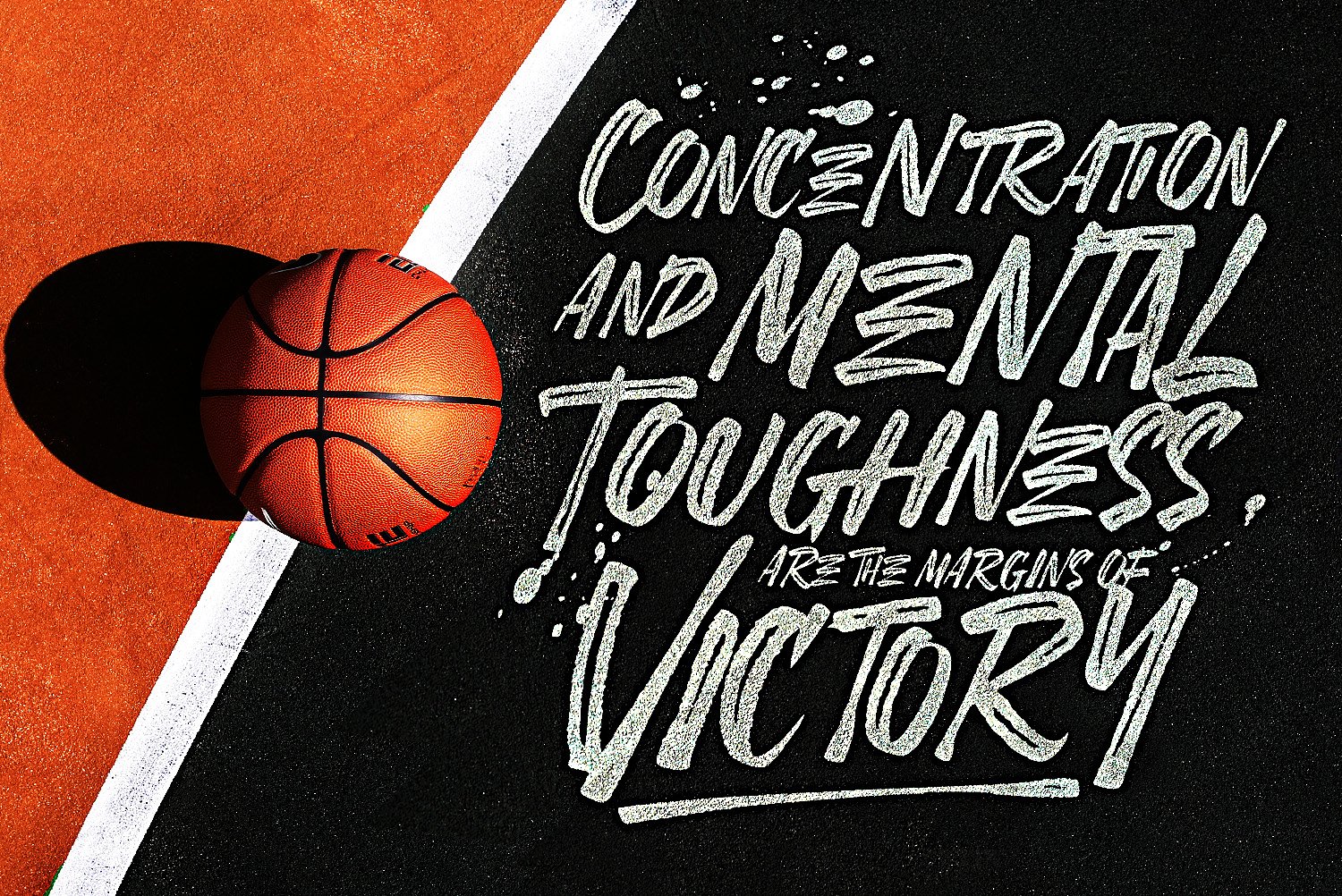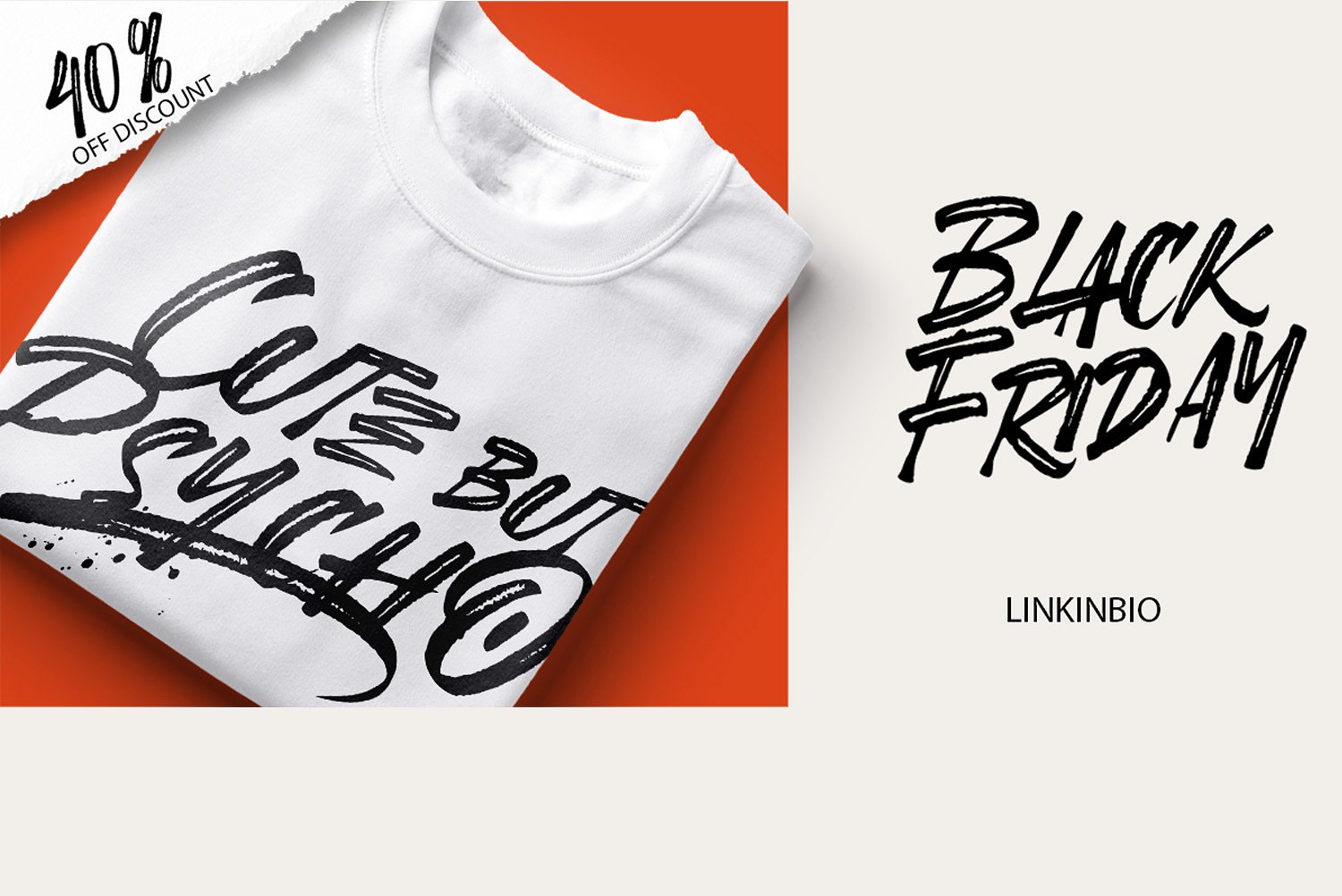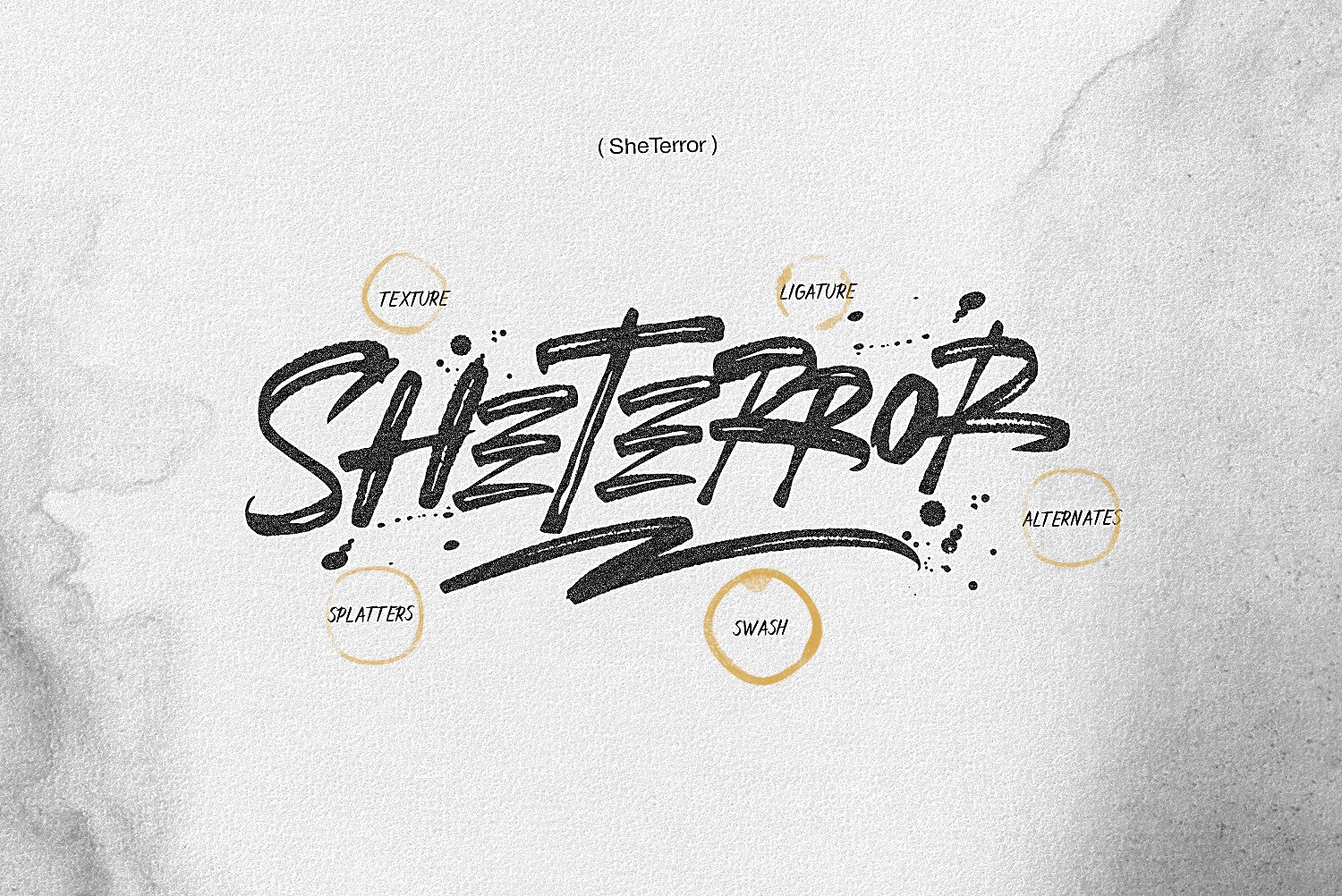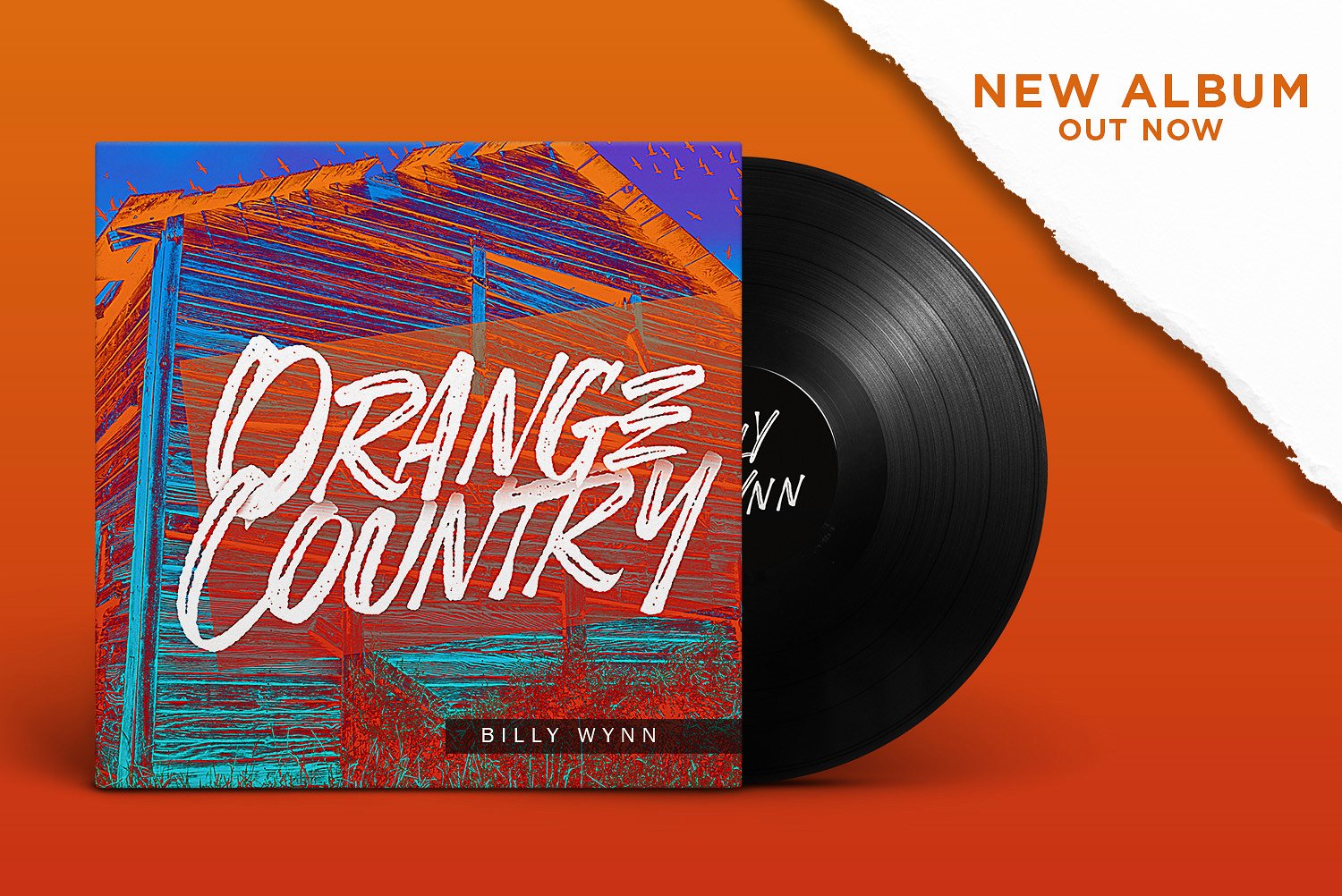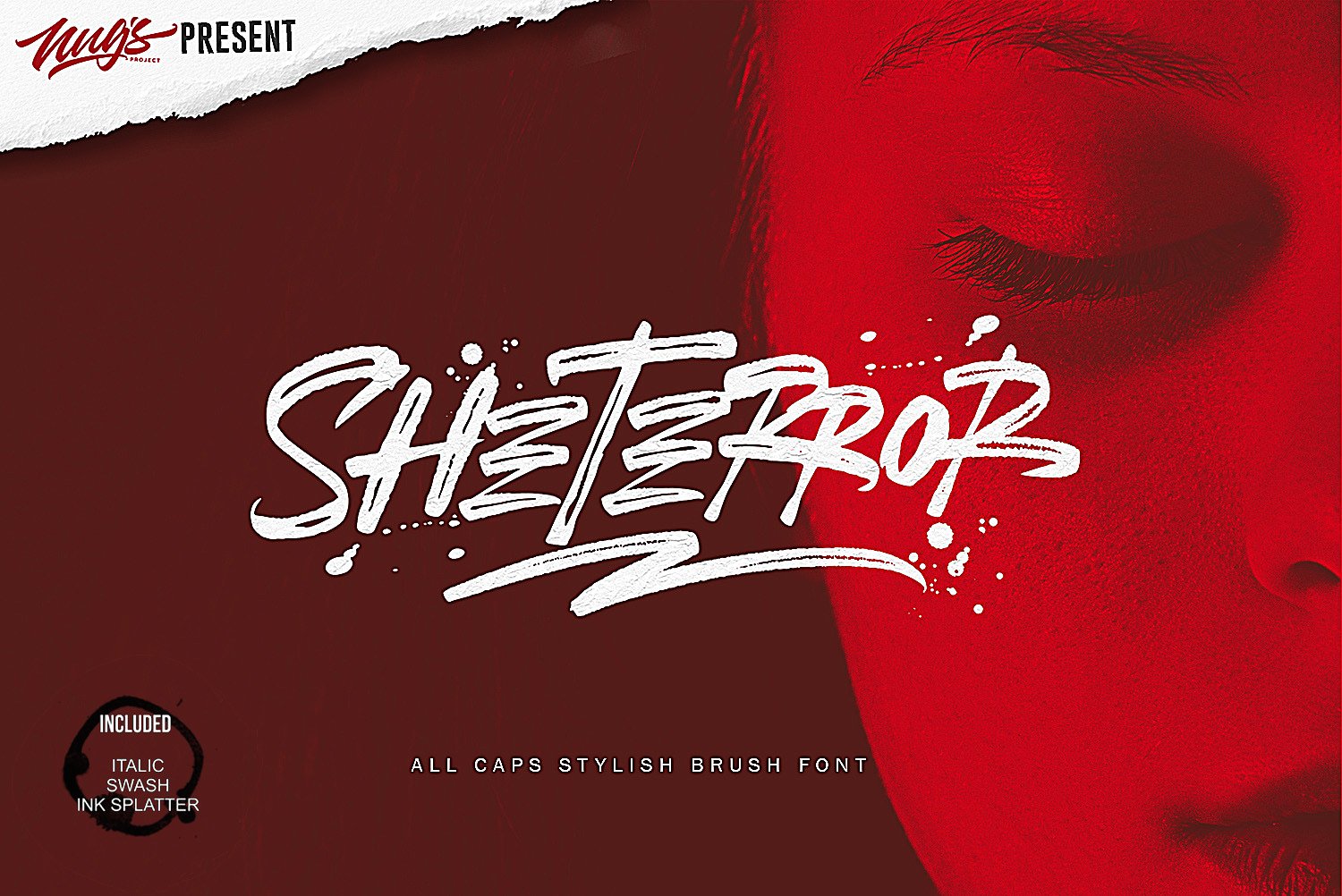
SheTerror Brush Font
This is handwritten font written with a brush pen. Using in ink or watercolor based designs or on its own as bold hand-brushed lettering. Introducing SheTerror Brush Font. It is design and shared by NUGS. Inspired by the cola pen, SheTerror also comes with such a style, maybe not similar to the original cola pen results … because SheTerror is made with ipad …This font’s raw energy can instantly transform any graphic design project in to a bold statement. It is ideal for Instagram quotes, movie, book cover,blogs and any kind of marketing material.